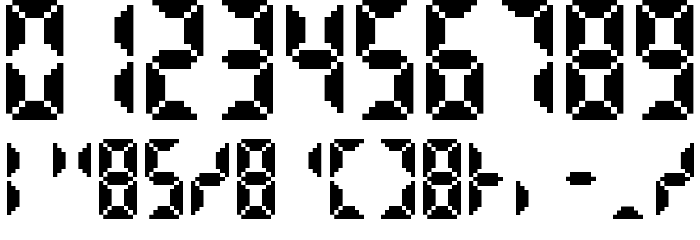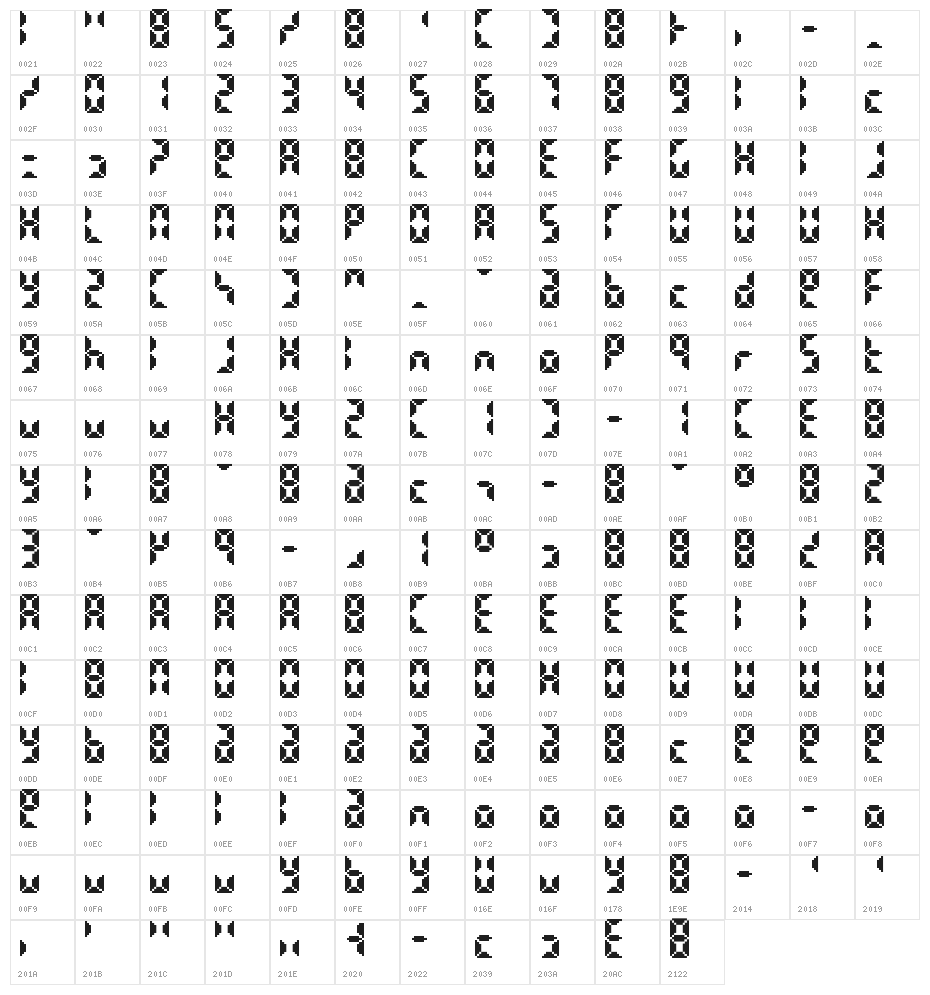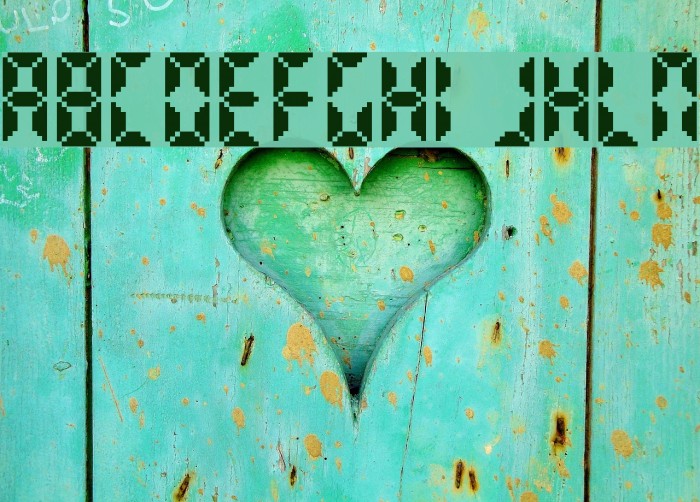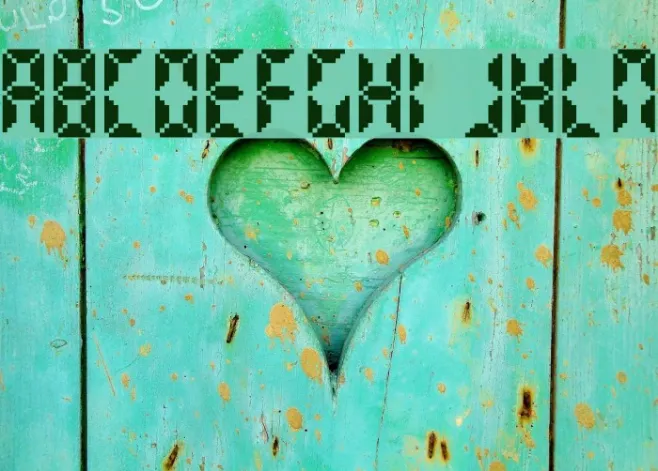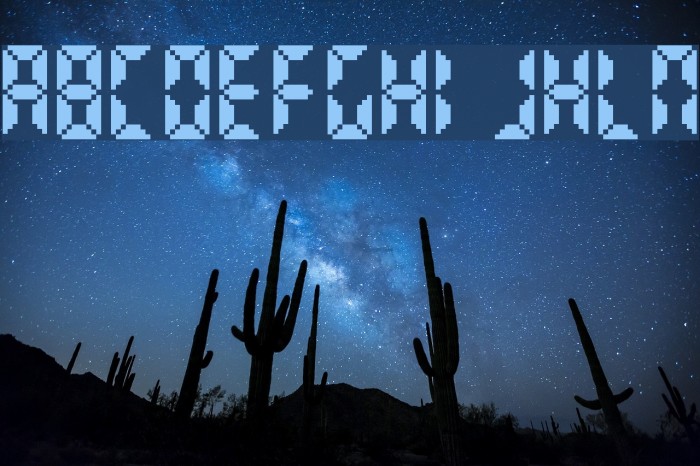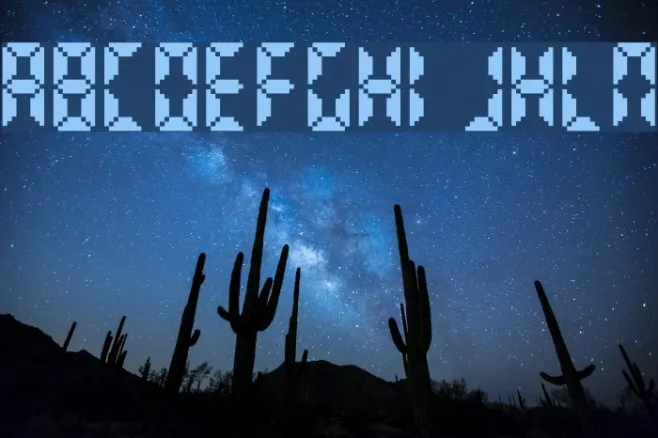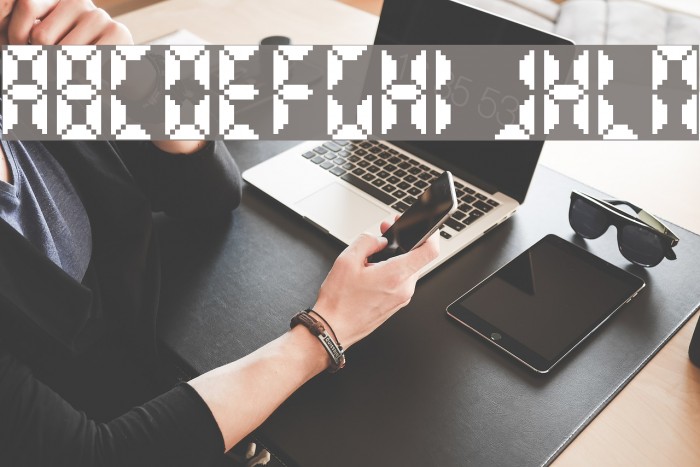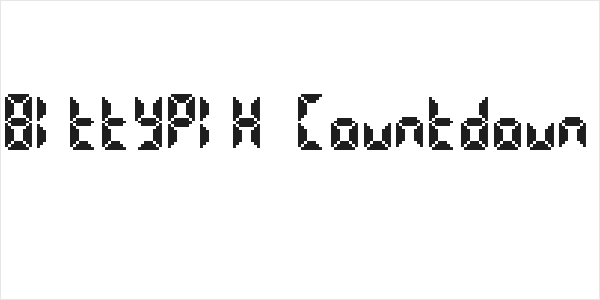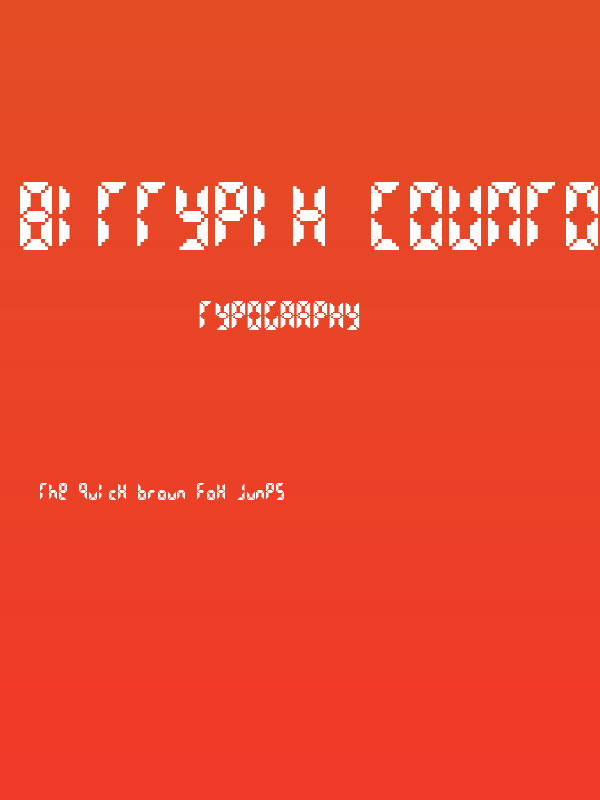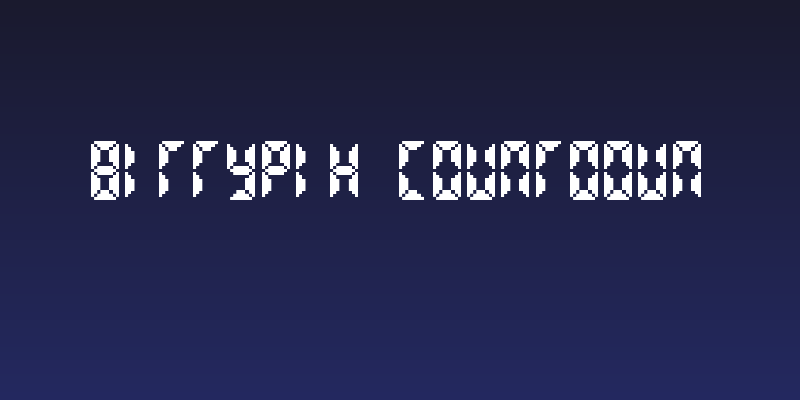
Bittypix Countdown Font
Bittypix Countdown Description
This font exhibits a pixelated, digital style reminiscent of early digital displays and retro video games. Each character is constructed from a grid of squares, creating a blocky and geometric appearance. The design is highly angular, with a consistent use of right angles and straight lines, giving it a mechanical and structured look. The characters are uniformly spaced, and the font maintains a consistent height across all letters and numbers. The uppercase and lowercase letters are distinct yet maintain the same pixelated style, ensuring readability while preserving the unique aesthetic. The numbers and special characters are similarly designed, fitting seamlessly with the overall theme. This font is ideal for projects that aim to evoke nostalgia for early computing or digital technology.
| Use Case | Headlines, Logos, Digital Art |
| Proposed Projects | Ideal for retro video game graphics, digital-themed posters, or tech-inspired branding. |